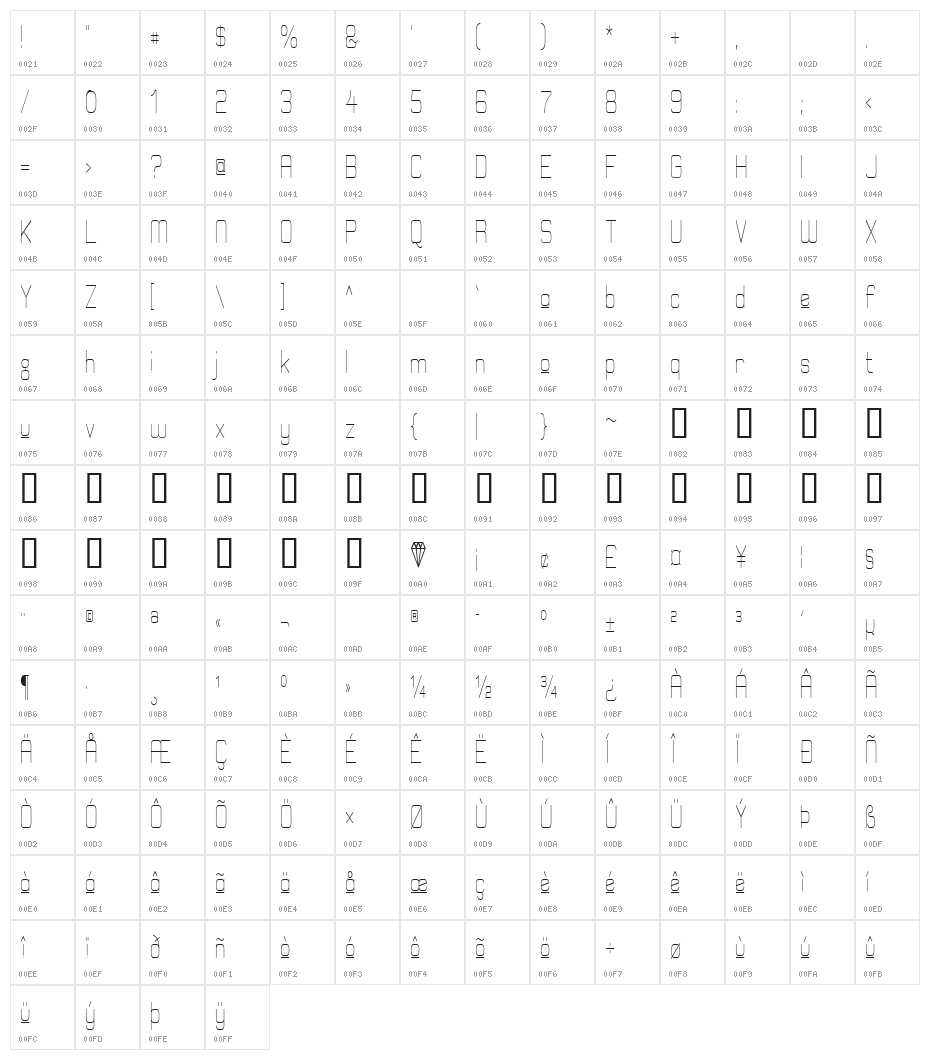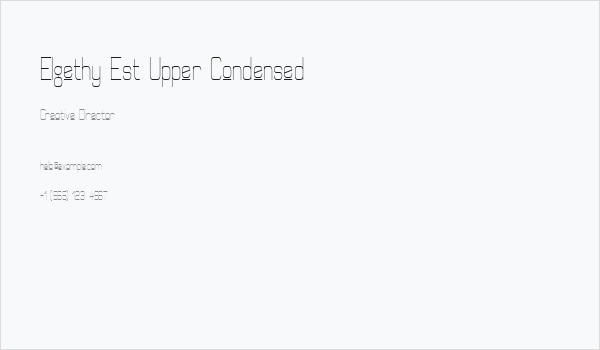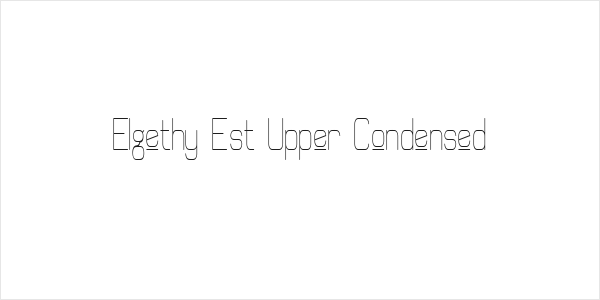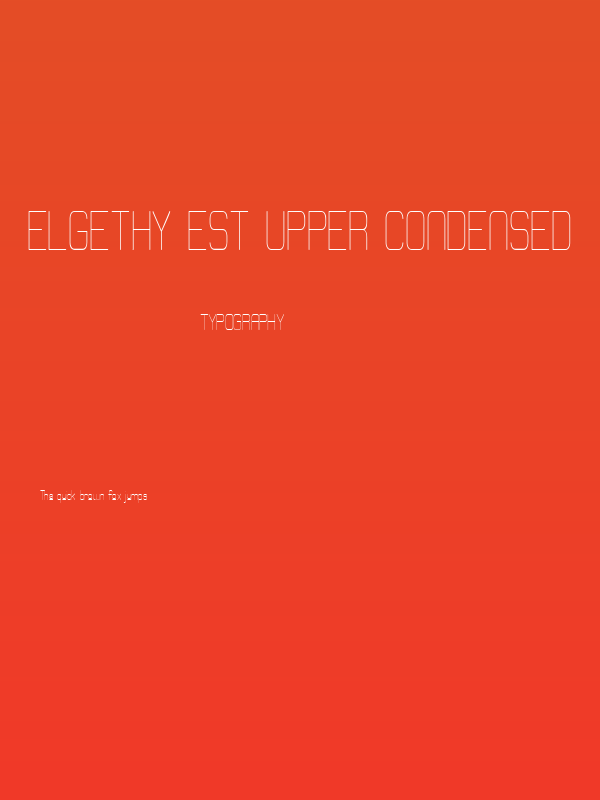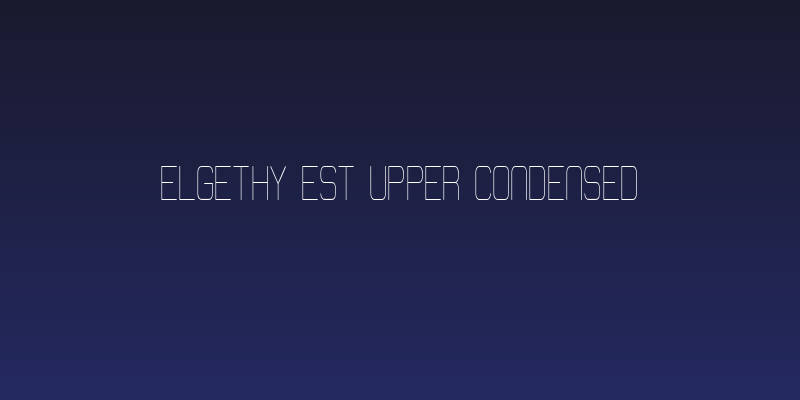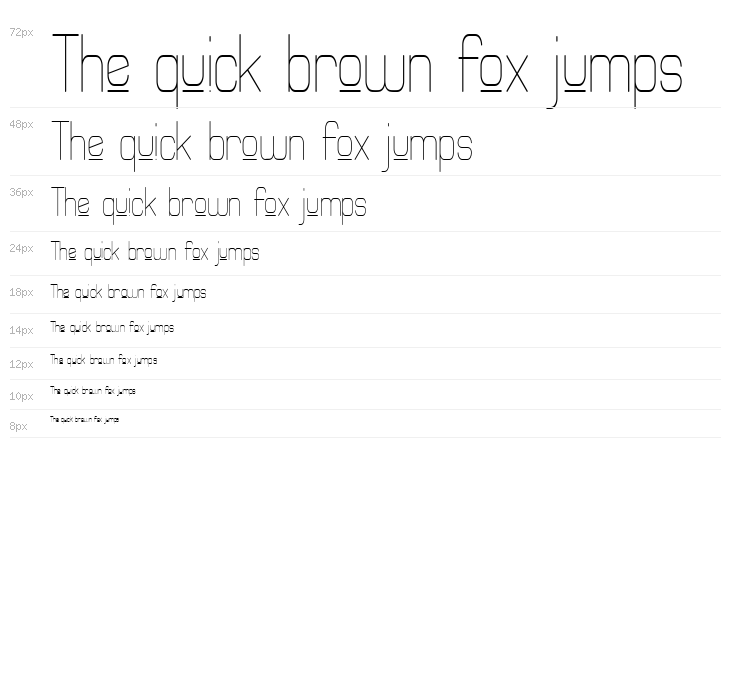
Elgethy Est Upper Condensed Font
Elgethy Est Upper Condensed Description
This font features a modern, geometric design with a condensed structure. The characters are formed with thin, consistent lines that give it a sleek and minimalist appearance. The uppercase letters are tall and narrow, while the lowercase letters maintain a similar style with a slightly more open form. The numerals and special characters follow the same design principles, ensuring uniformity across all glyphs. This font's clean lines and contemporary aesthetic make it suitable for a variety of design applications.
| Proposed Projects | Ideal for modern branding, tech-related projects, minimalist posters, and sleek editorial layouts. |